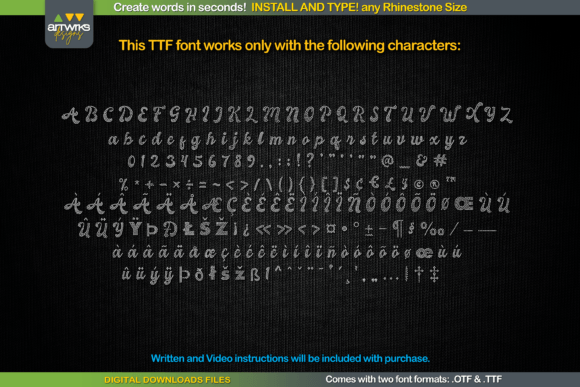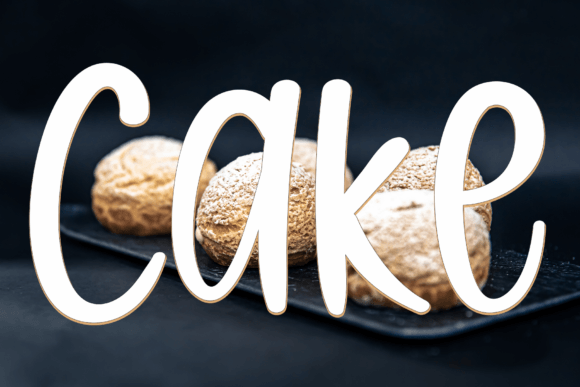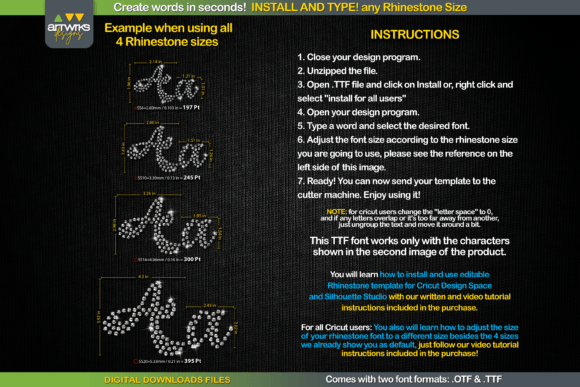
Splashed Font
It sounds like you’re describing a specialized font designed for creating rhinestone templates and heat transfer vinyl designs. A Rhinestone template Splashed Script font appears to offer a quick and easy way to generate words filled with rhinestones. This is particularly useful for creating designs that involve heat transfer vinyl, allowing for convenient customization of various projects.
Fonts like these are tailored to streamline the process of adding a decorative and textured element to your designs, especially when working with materials like rhinestones and heat transfer vinyl. The script style adds a touch of elegance and creativity to the text, making it suitable for a range of applications, from apparel designs to various crafting projects.
The convenience of being able to create words filled with rhinestones or arranged for heat transfer vinyl with ease makes such fonts valuable tools for designers and crafters looking to add a unique and visually appealing element to their creations.